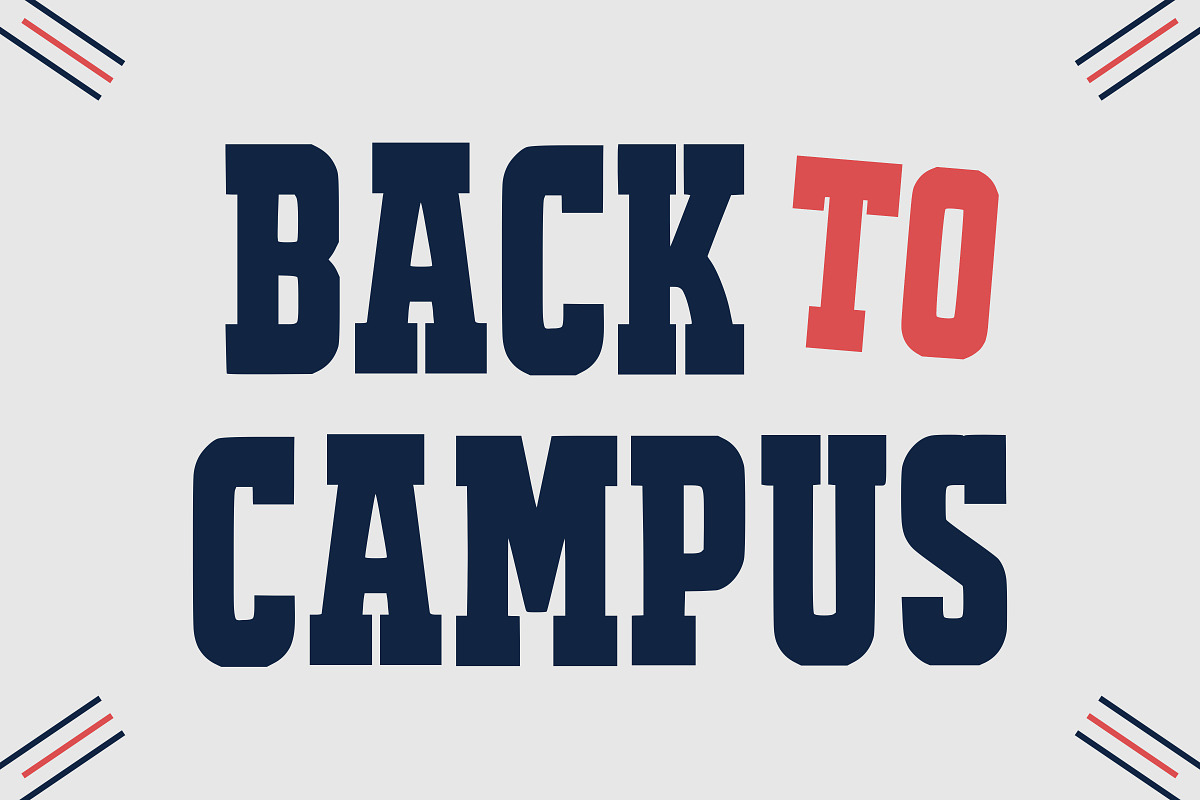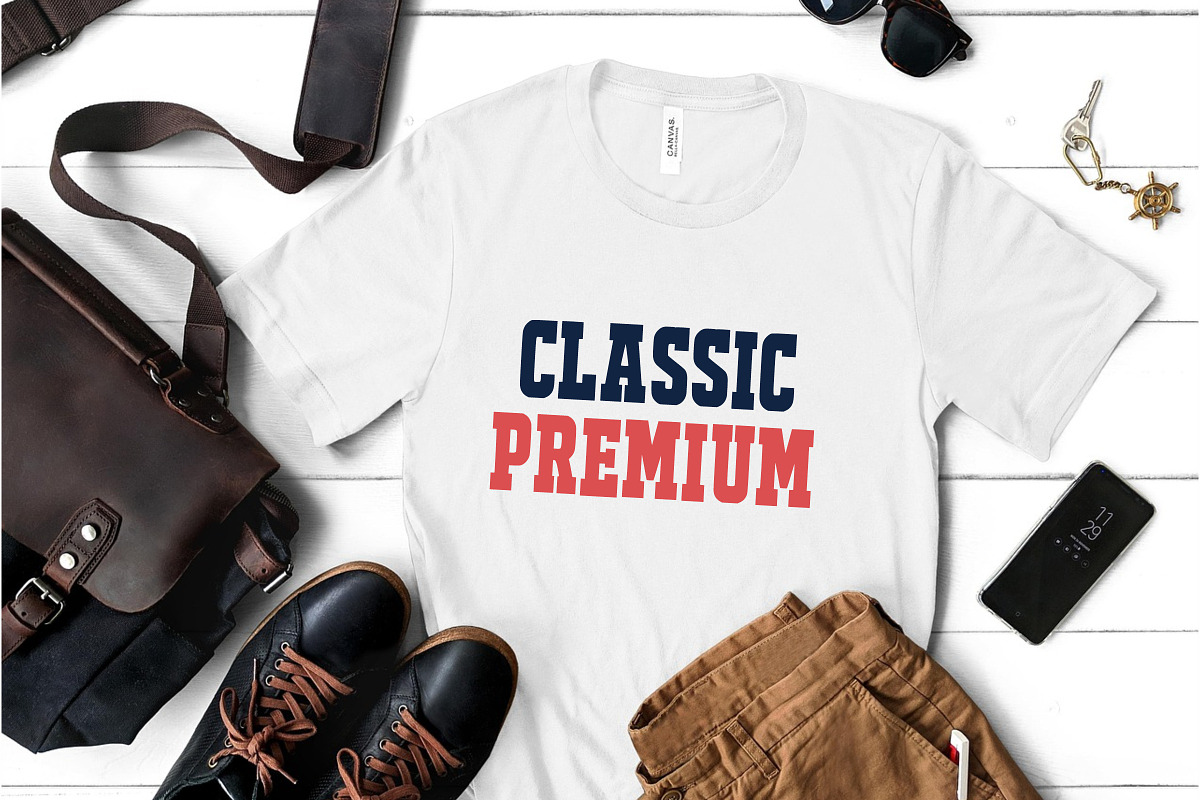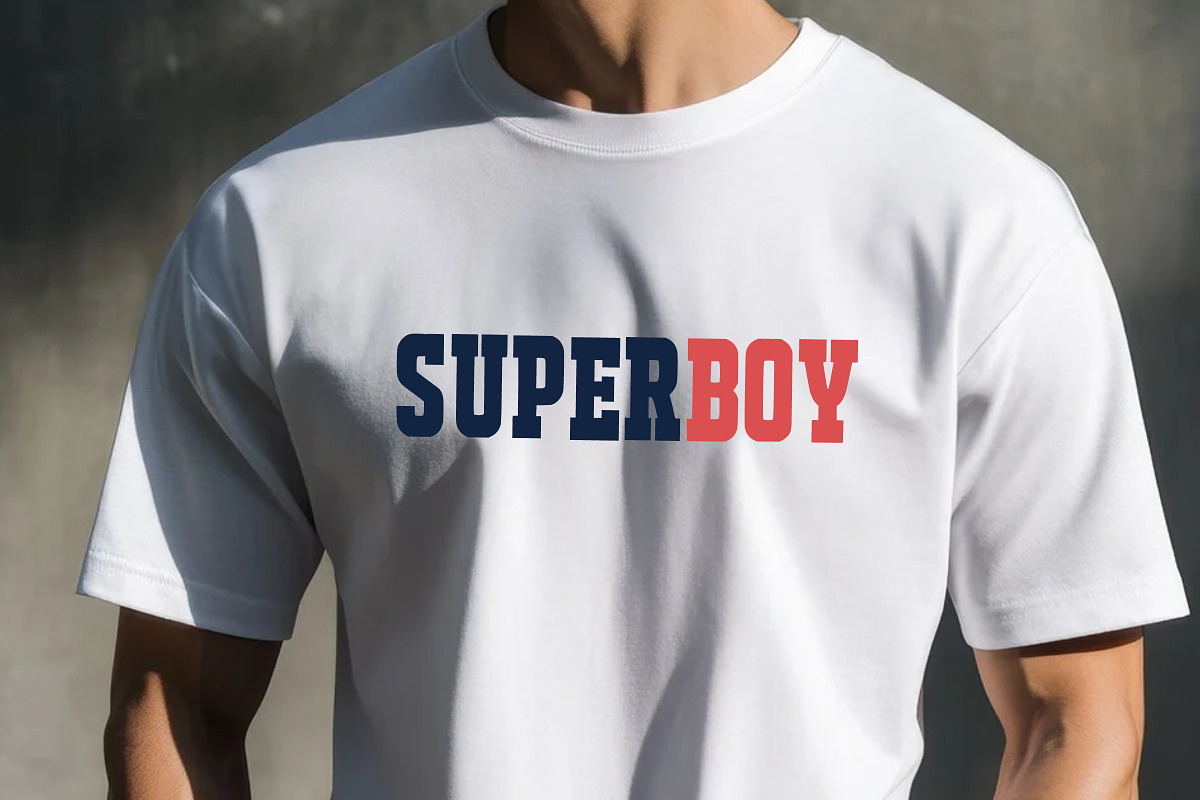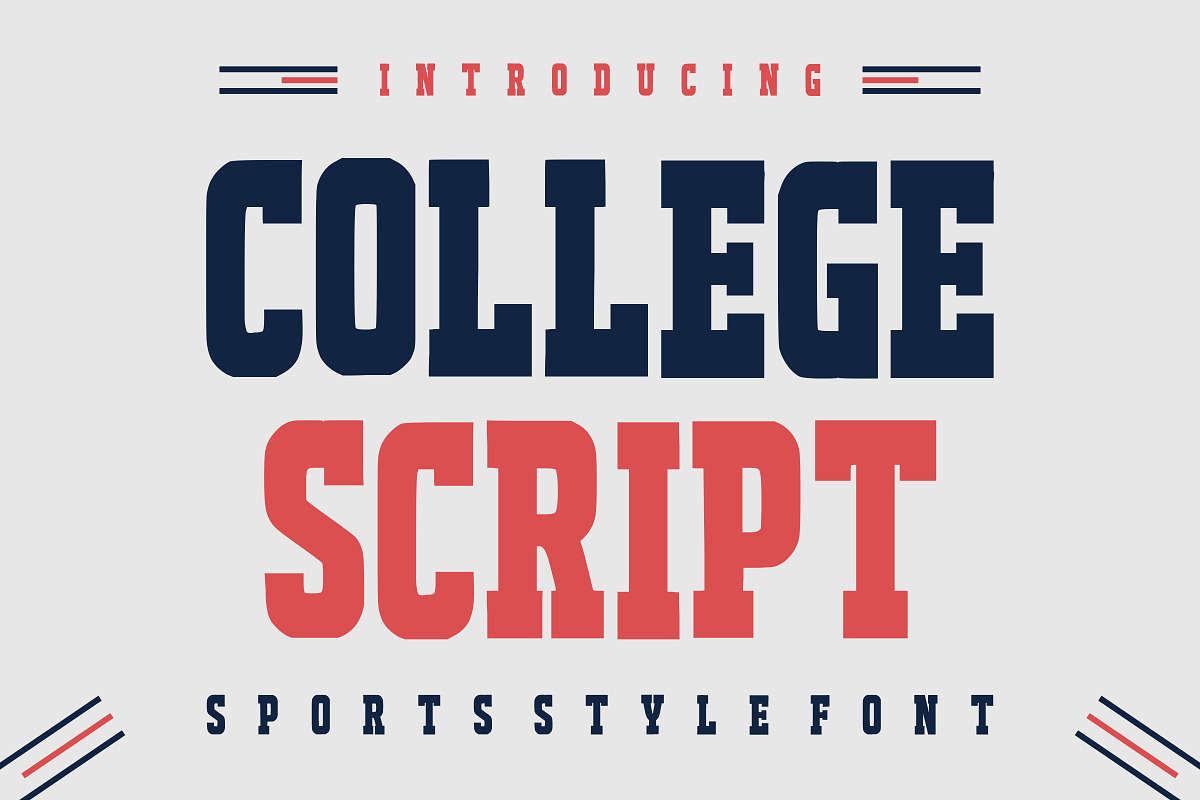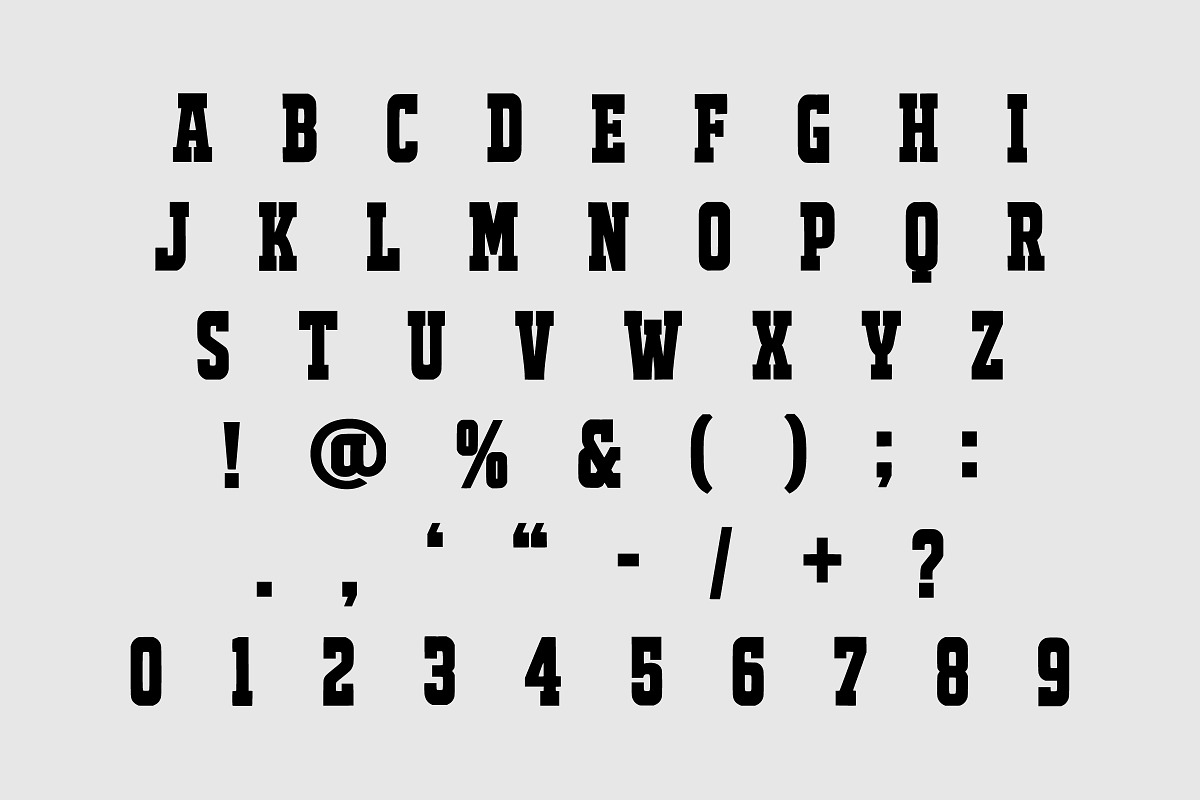
College Script
College Script is a strong and confident sports-style display font inspired by traditional college and varsity typography. Designed with bold strokes and athletic character shapes, this font brings energy, power, and team spirit to your designs.
Perfect for sports branding, team logos, jersey lettering, school merchandise, posters, gym apparel, YouTube thumbnails, and bold headline designs. Whether you’re creating for football, basketball, baseball, or general athletic themes, College Script delivers a professional varsity look.